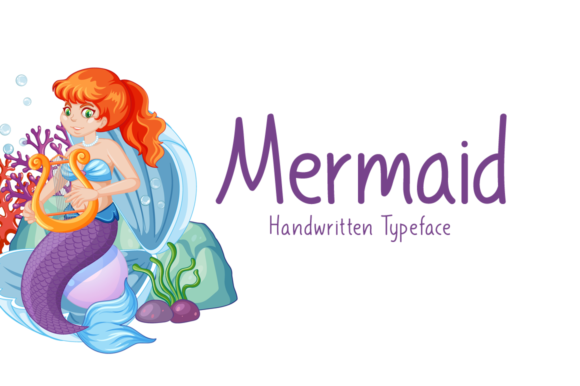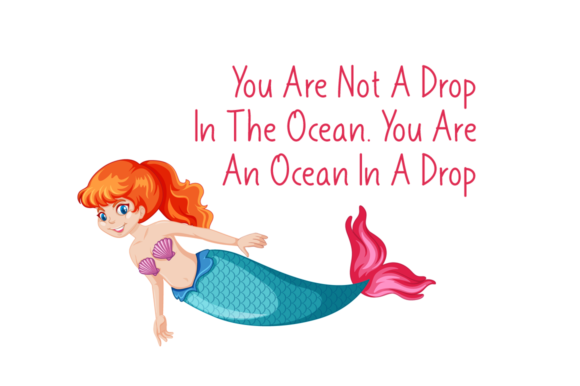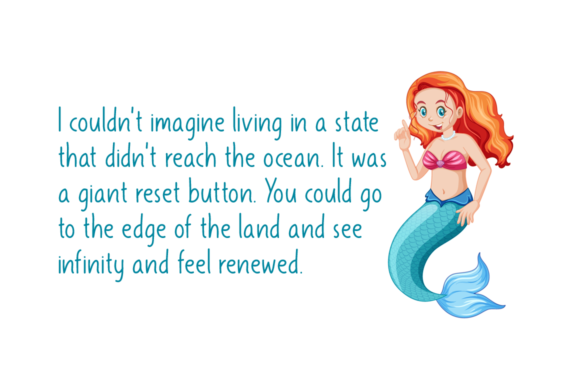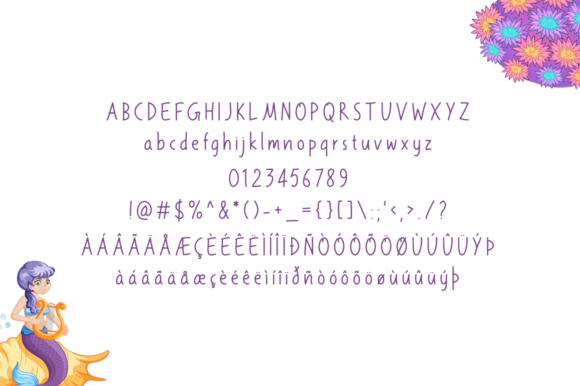
About Mermaid Font
Mermaid is a cute and friendly handwritten font. Add this beautiful font to each of your creative ideas and notice how it makes them stand out!